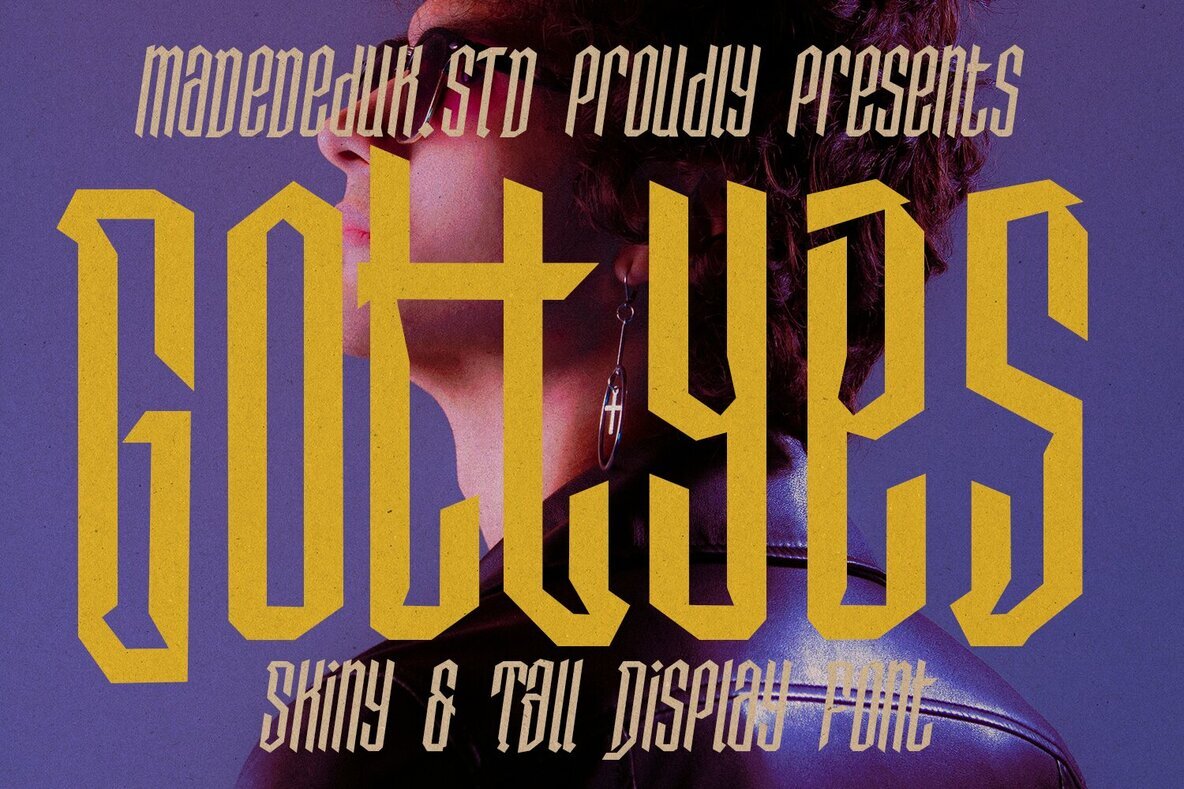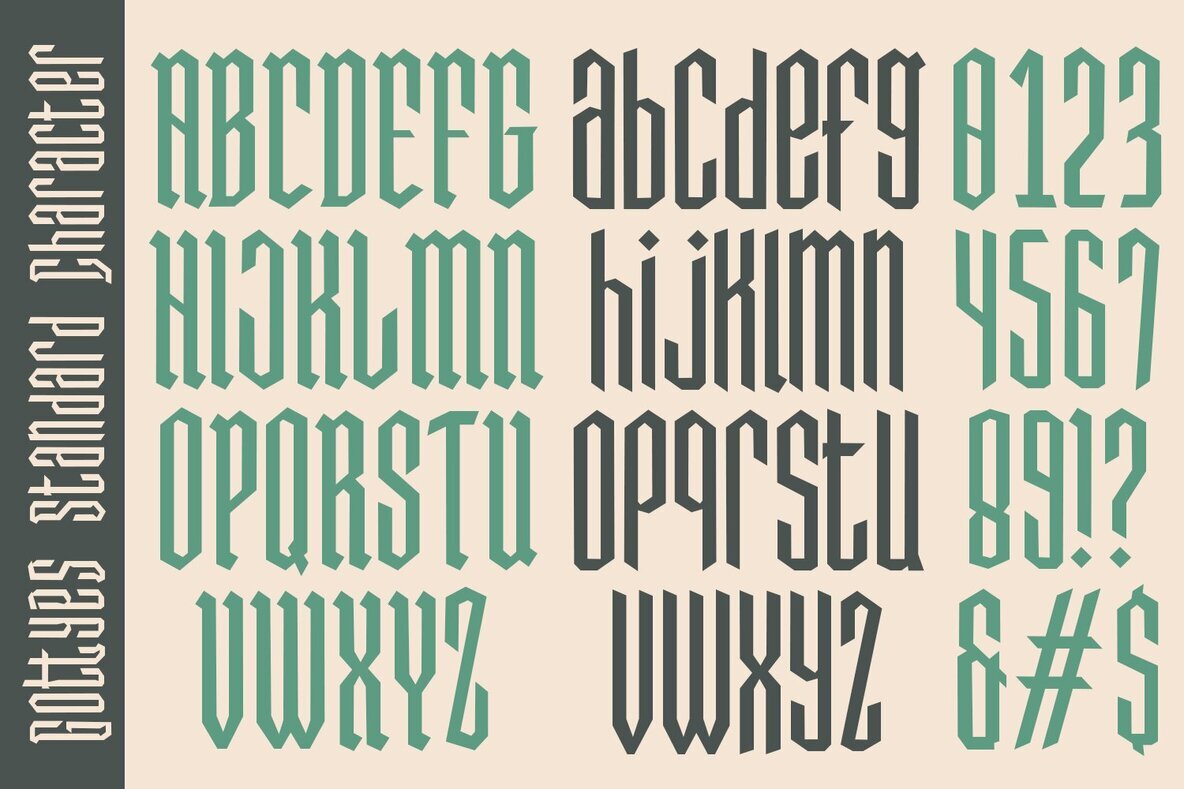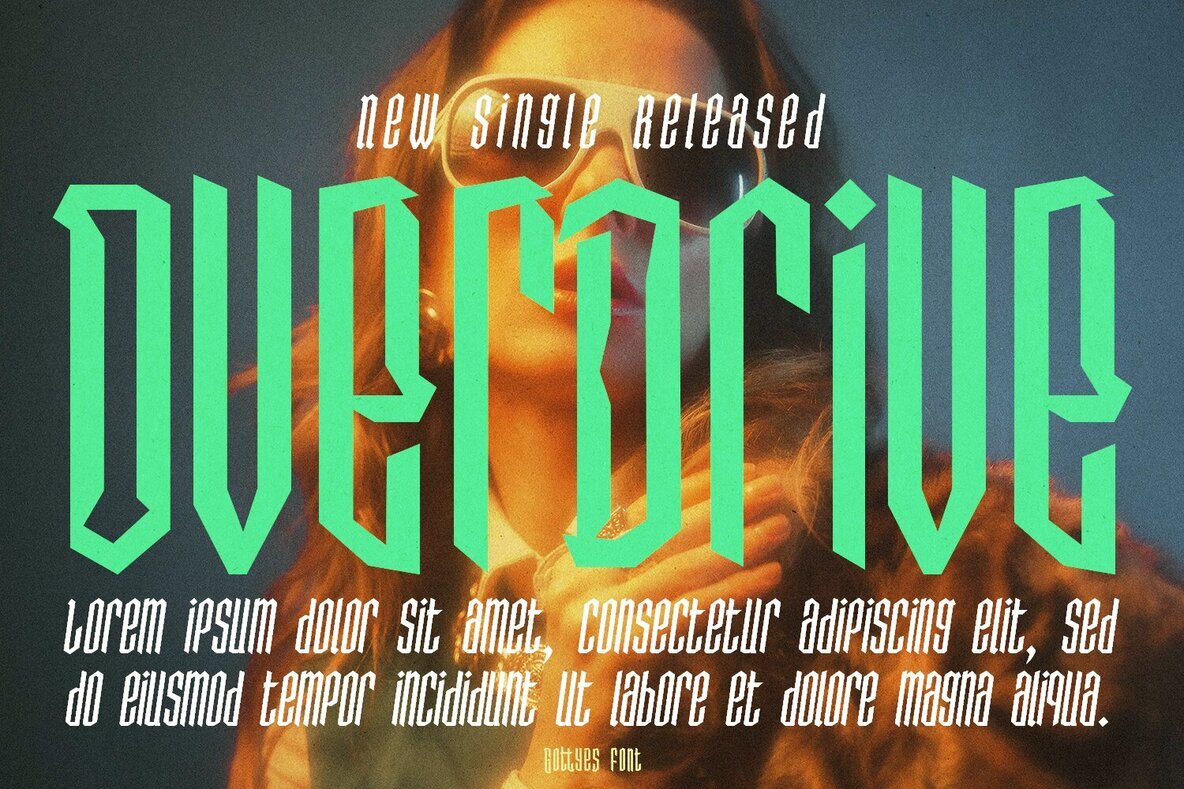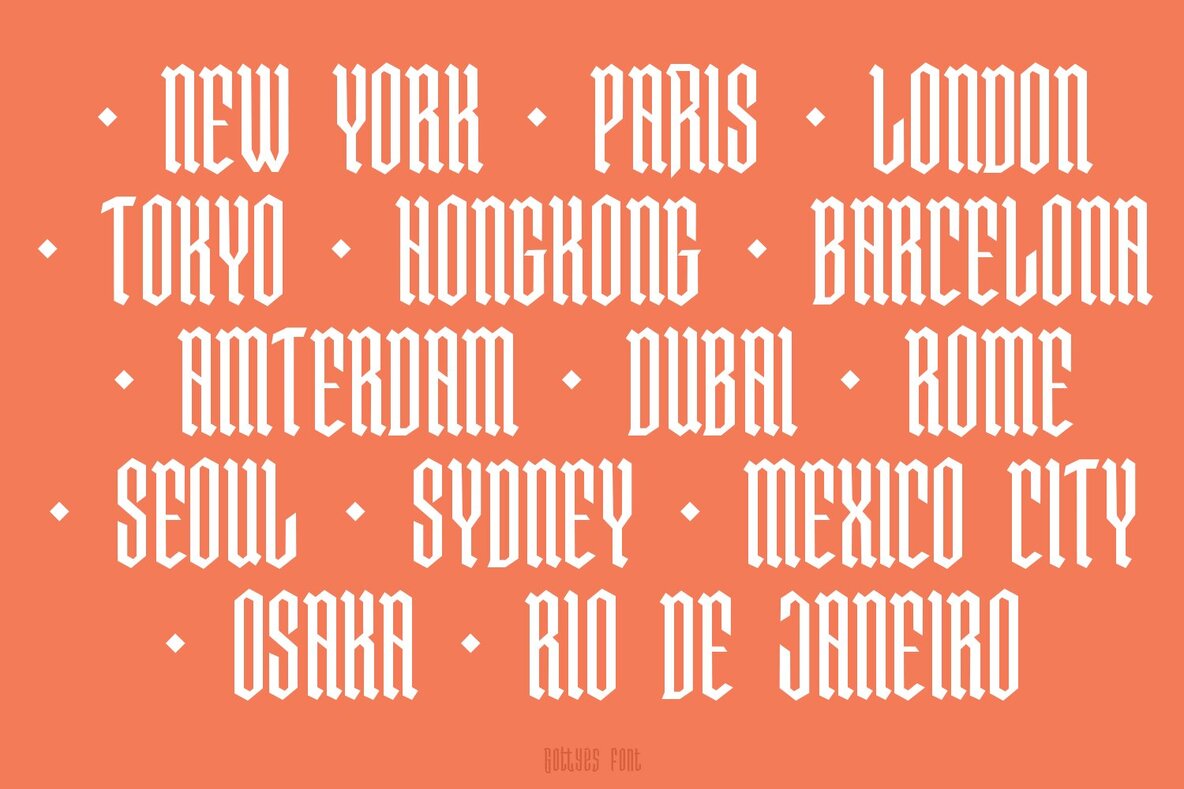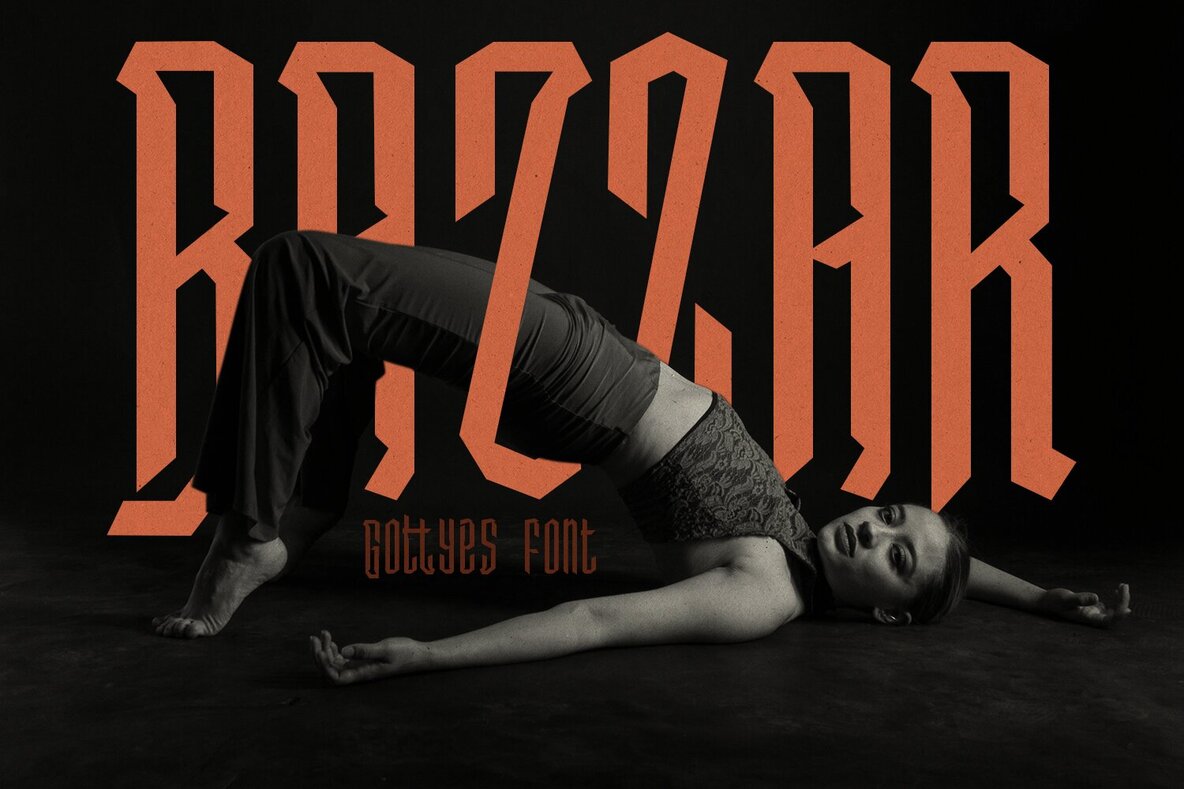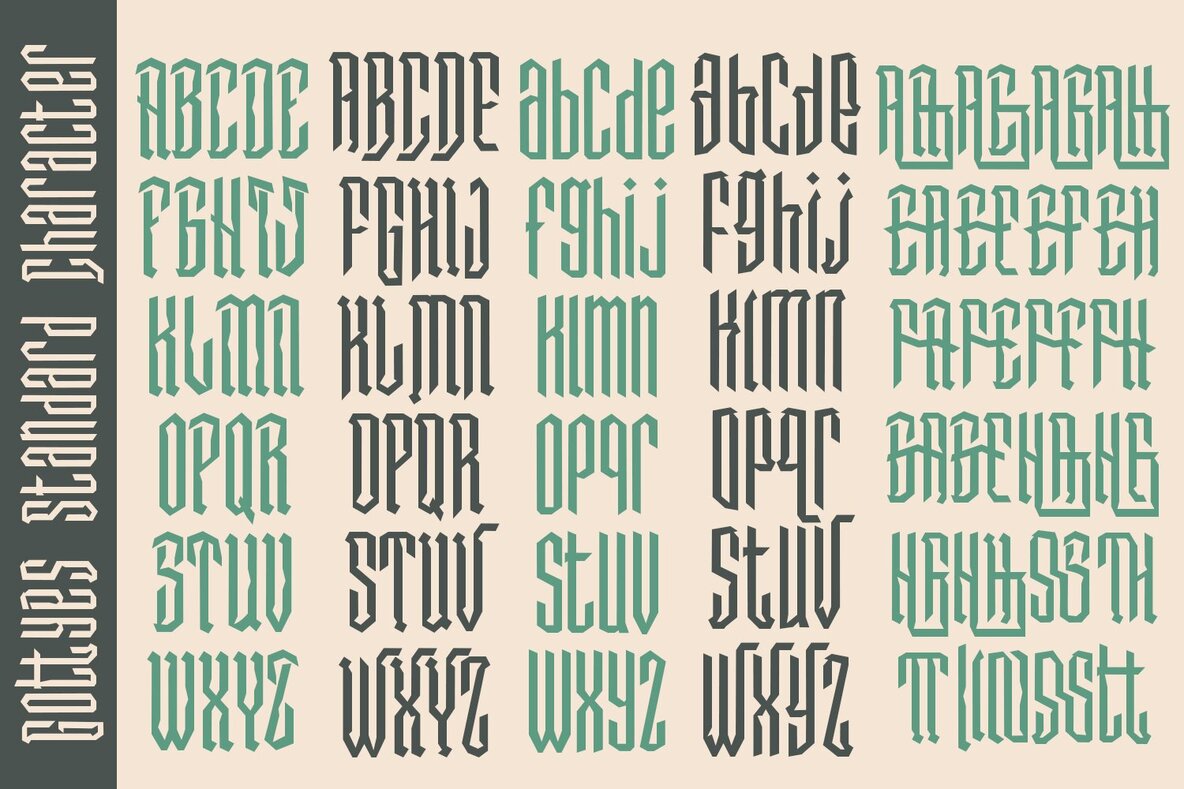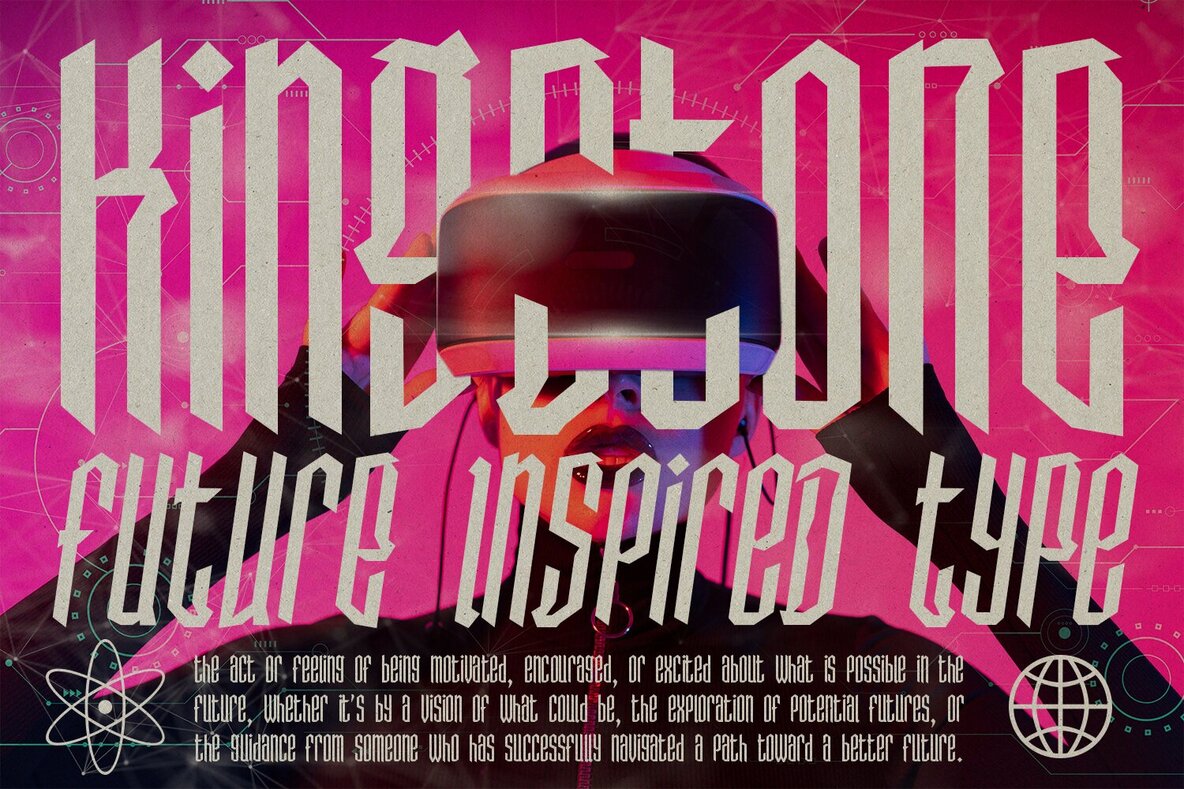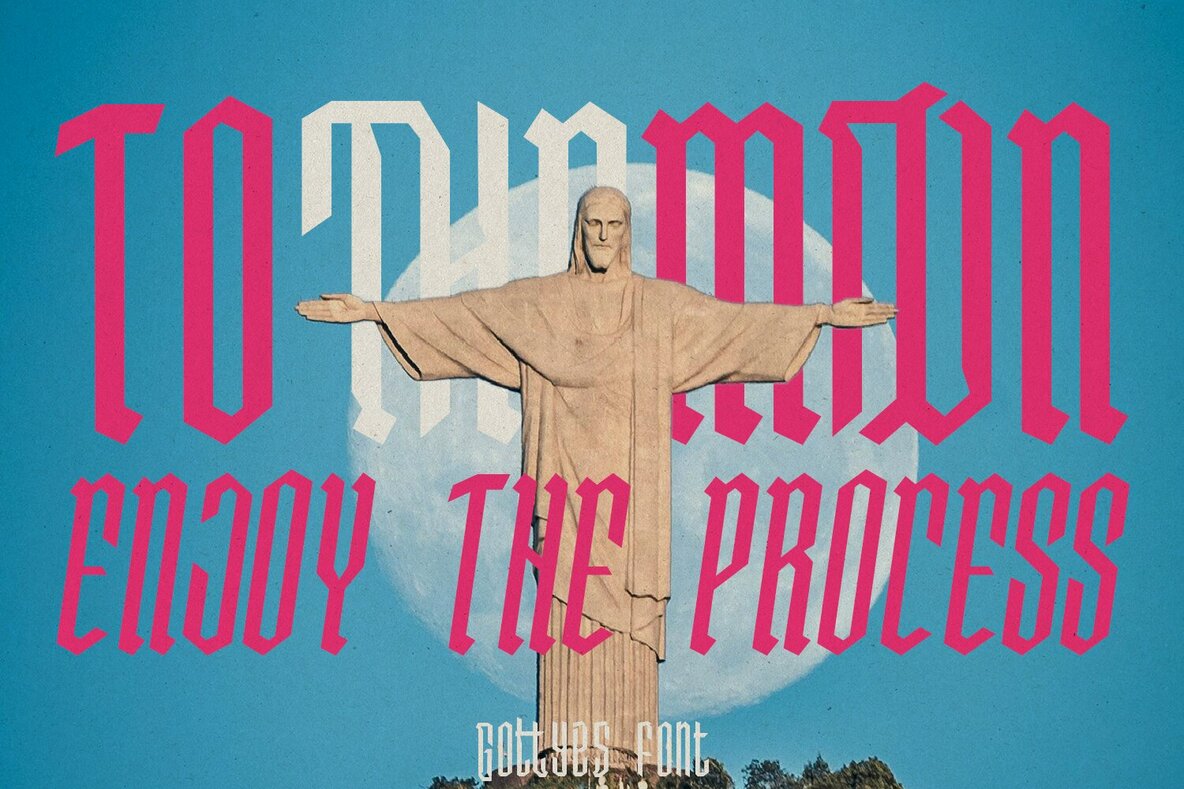
Gottyes Font
Introducing Gottyes, a captivating skinny and tall font that artfully blends modern aesthetics with a touch of vintage allure. This typeface features distinct curves in select glyphs, adding a unique flair to your designs. It is available in a single weight and includes an italic variant, making it versatile for various creative applications. Whether crafting digital content or printed materials, Gottyes offers ample opportunity for experimentation. Its display type nature invites you to explore new design possibilities with confidence.Gottyes: A Fusion of Modernism and Vintage Charm
Perfect for Eye-Catching Headlines